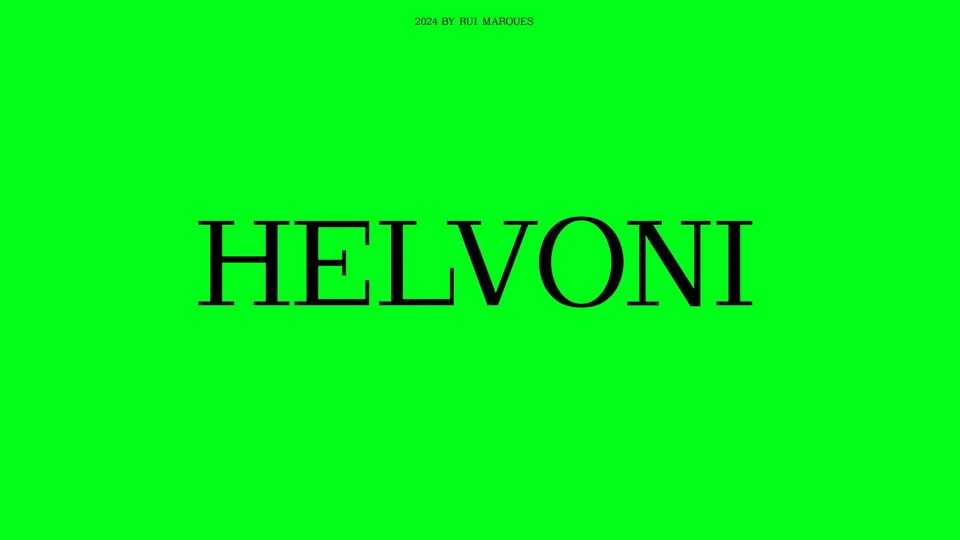
Download Helvoni font, an original typeface inspired by the supreme craftsmanship of two of the most renowned typefaces ever created, the iconic Helvetica and Bodoni.
Designer: Rui Marques